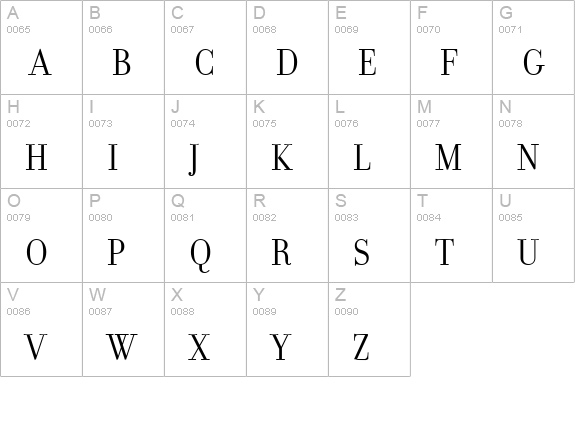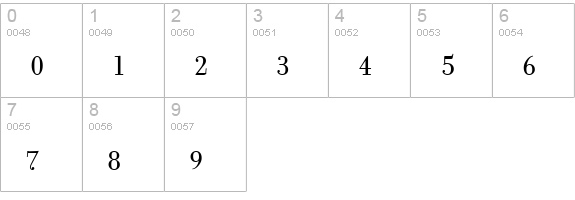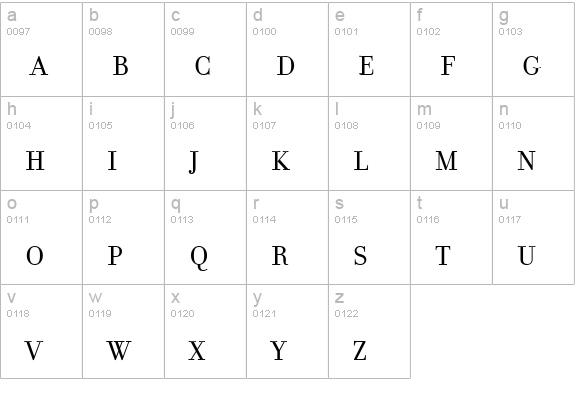
FilosofiaGrandCaps Regular Font Details
FilosofiaGrandCaps Regular is the standard, neutral variant in the FilosofiaGrandCaps typeface family \xE2\x80\x94 well suited to general body text, paragraphs, and standard typographic work.
FilosofiaGrandCaps Regular font is a sophisticated and elegant typeface that exudes a sense of grandeur and classic beauty. Its uppercase letters are gracefully designed with intricate details, making it perfect for adding a touch of sophistication to any project. This font is versatile and can be used for various purposes, from editorial design to branding and packaging. Not only does FilosofiaGrandCaps Regular font offer timeless elegance, but it is also available for free download at FontsMarket.com. This means that you can easily access this stunning font and elevate your design projects without any cost. Embrace the timeless beauty and versatility of FilosofiaGrandCaps Regular font for your next design endeavor.